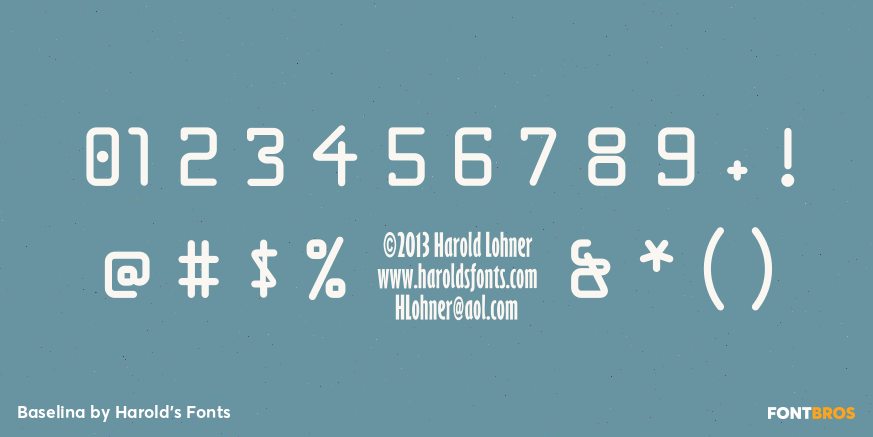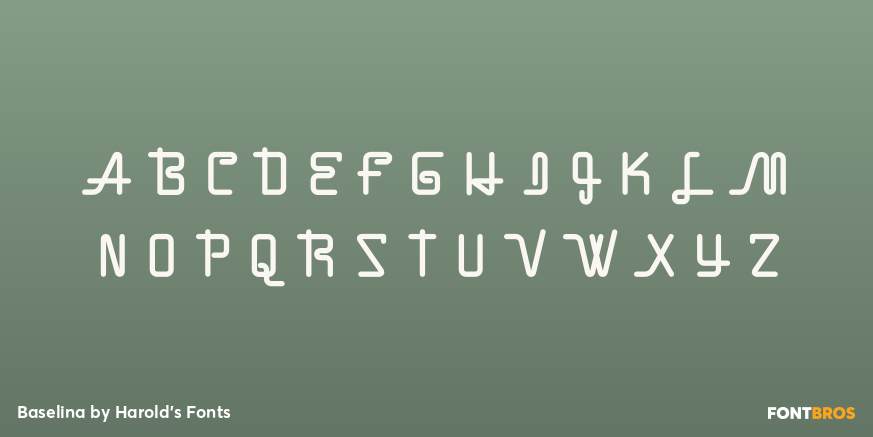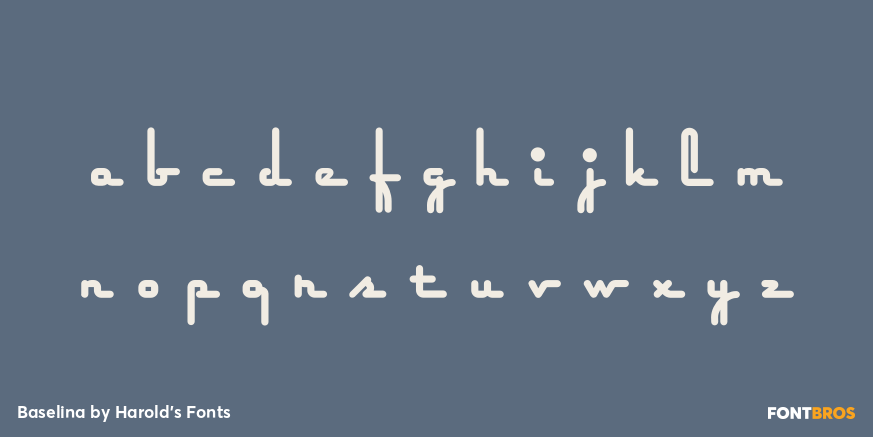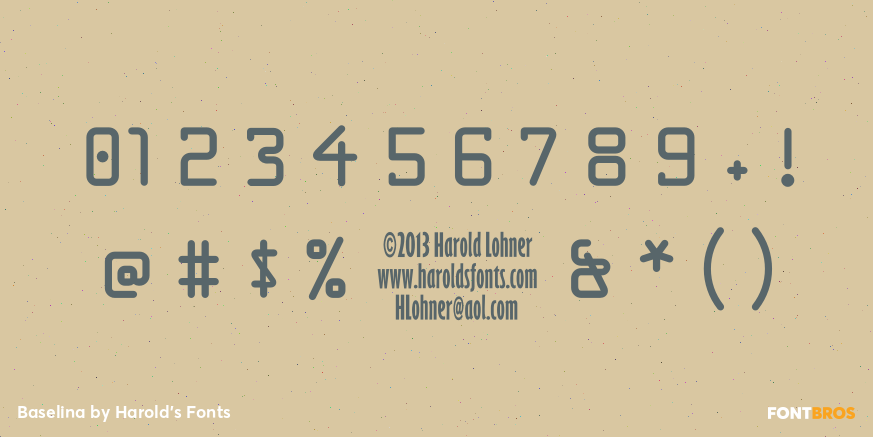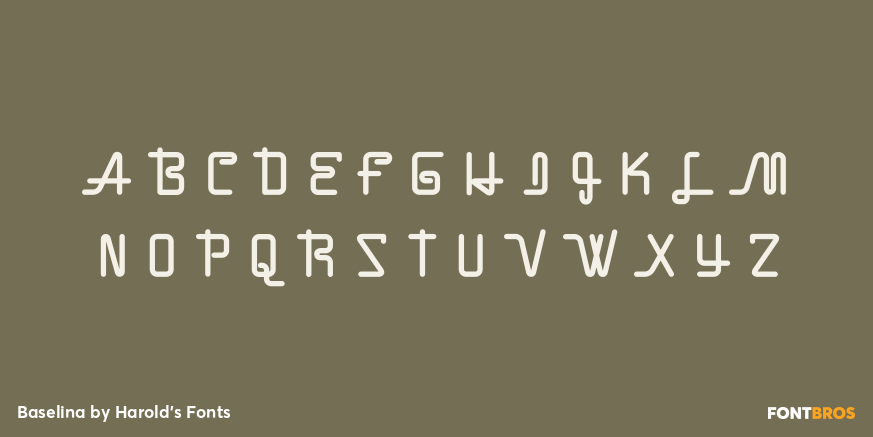
Baselina
Font Family by Harold's Fonts
Baselina is a stylish, squarish font that hugs the baseline, suggestive of Art Deco and neon signs. In four weights: Light, Regular, Bold and Extra Bold. Inspired by the hand-lettered titles of the Fleischer brothers' animated film "Mr. Bug Goes to Town" (1941)